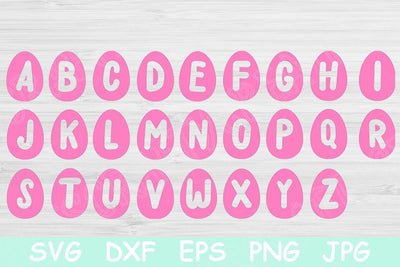
Easter Font Svg Files with Easter Egg. Easter Egg Svg Font Cut Files for Cricut and Silhouette. Easter Svg Files Alphabet Letters Design.
These easter font svg files for cricut that is in the shape of eggs is the perfect easter egg svg files to use on your cutting machine. It would look great on a pillow or bag.
In pack are included 26 uppercase Easter egg letters: